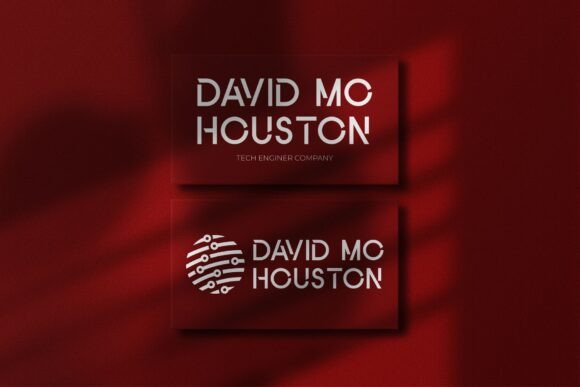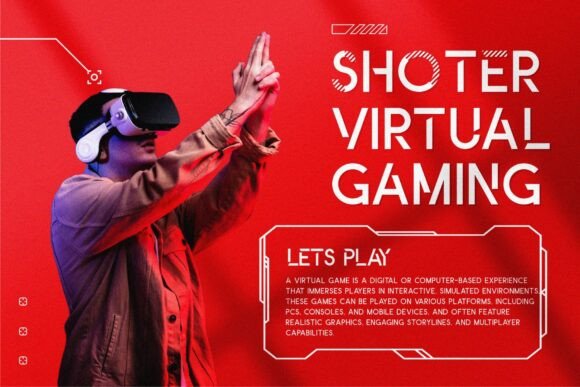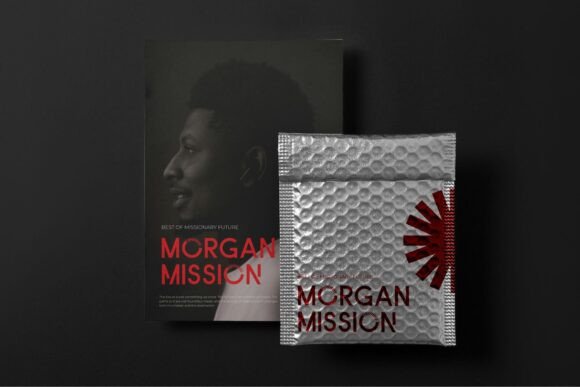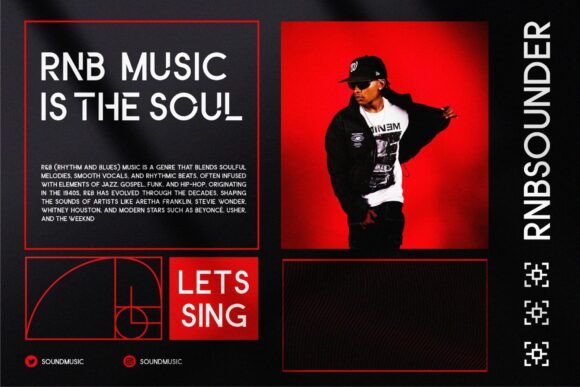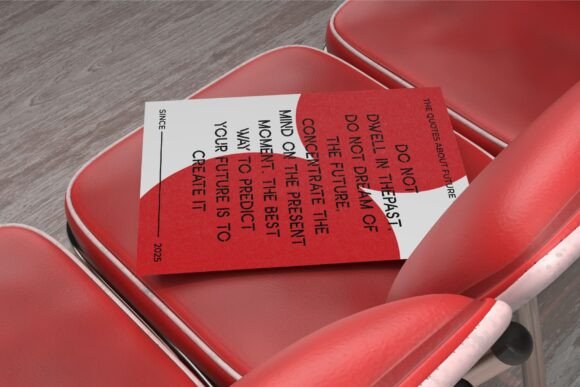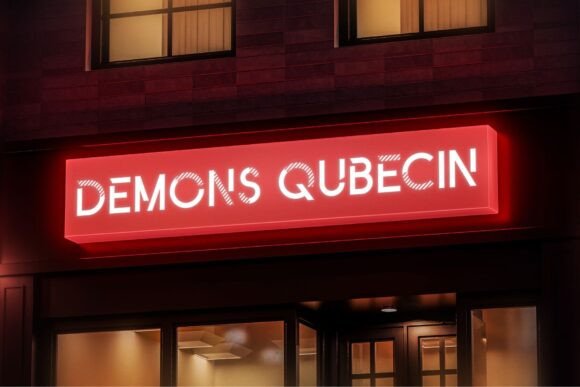
Introduction to Radelyn Font
Remember that moment when you’re brainstorming ideas for a new project, and you stumble upon the perfect font that elevates your entire concept? For designers, finding the right font can be the key to unlocking a creative breakthrough. One such game-changing font is the Radelyn Font, an elegant and classy allcaps typeface that’s sure to leave a lasting impression.
Whether you’re designing invitations, logos, or movie titles, the Radelyn Font is an invaluable design resource that can add a touch of sophistication to any project. With its high-quality design and transparent background, this font is perfect for designers looking to create visually stunning and professional-looking designs.
Best of all, the Radelyn Font is available for free download, making it an accessible resource for designers of all levels. In this article, we’ll explore the benefits and applications of this versatile font, and why it’s a valuable addition to any designer’s toolkit.
Key Features of Radelyn Font
- High-quality, professional font design suitable for creative projects.
- Transparency and flexibility with a transparent background, allowing for seamless integration into various design elements.
- Includes 4 font styles (Regular, Italic, Bold, and Bold Italic) for added versatility in creative projects.
- Designed with high-resolution clarity, suitable for use in print and digital applications up to 300 DPI.
- Perfect for designers, artists, and creatives looking for a high-quality, free font to elevate their projects.
Honest Review: Radelyn Font
I recently had the chance to work with the Radelyn Font, and I must say it’s been a game-changer for my creative projects. As a designer, I’m always on the lookout for high-quality design resources that can elevate my work.
- ✨ High-quality typography: The Radelyn Font offers crisp, clear lettering that’s perfect for any project.
- ✨ Transparent background: The font’s transparent background allows for seamless integration into any design.
While the Radelyn Font excels in many areas, there are a few limitations to consider:
- ⚠️ Limited character set: The font’s character set is somewhat limited, which may not be suitable for projects that require a wide range of characters.
- ⚠️ Not ideal for small text: Due to its high-quality nature, the font may not be the best choice for small text sizes.
Overall, I’m thoroughly impressed with the Radelyn Font. Its high-quality typography and transparent background make it a valuable resource for any designer working on creative projects. While it may have some limitations, the benefits far outweigh the drawbacks. If you’re looking for a reliable design resource, the Radelyn Font is definitely worth checking out.
How to Use Radelyn Font
The Radelyn Font is a high-quality design resource perfect for creative projects. With its unique style and transparent background, it’s an excellent addition to any design.
Tips for Getting the Most Out of Radelyn Font
Use the Radelyn Font in combination with other design elements to create a cohesive look. Experiment with different font sizes and styles to add visual interest to your design.
The Radelyn Font is perfect for designing invitations, business cards, and social media graphics. Its unique style and transparent background make it an excellent choice for creative projects.
What makes the Radelyn Font a high-quality design resource?
The Radelyn Font is a high-quality design resource due to its unique and creative design, which makes it an excellent choice for various design projects. Its high-quality design ensures that it will display clearly and consistently across different mediums, from digital screens to print materials, with a transparent background that allows for easy layering and composition.